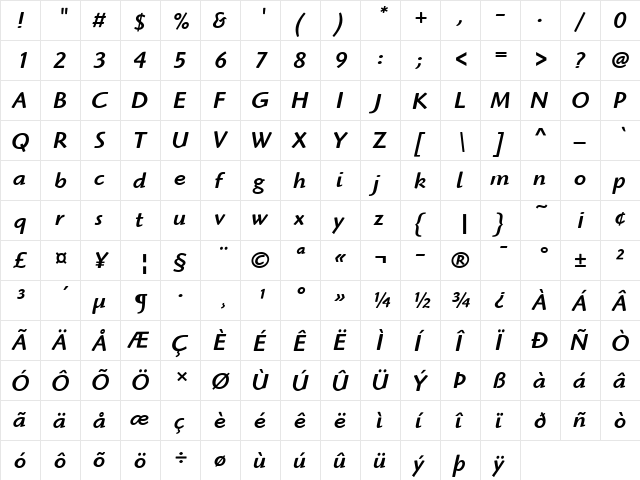
Highlander ITC Medium Italic
Medium Italic · by URW  ·
Foundry by URW
Design Context for Highlander ITC Typeface
Highlander ITC is a composed and adaptable typeface that performs quietly and consistently across a wide range of design contexts. The dynamic lean of this cut emphasises speed and emphasis in any layout.
Pro Tip: Try Highlander ITC for annotation and caption copy alongside an upright companion — the contrast in angle creates a dynamic but ordered typographic system.